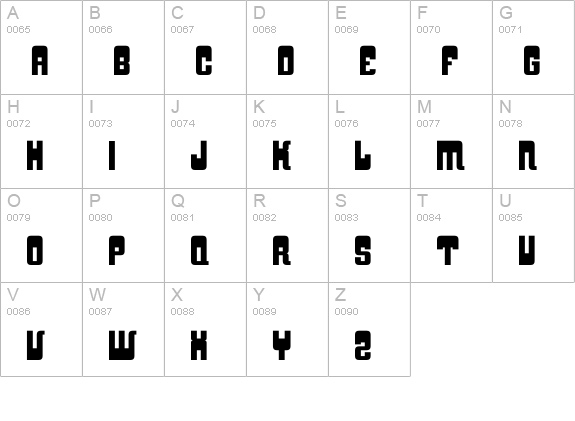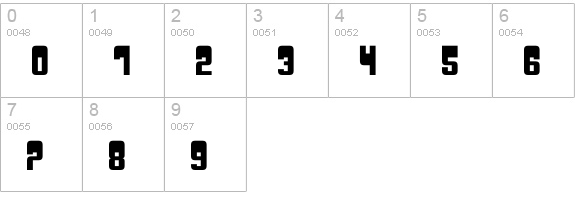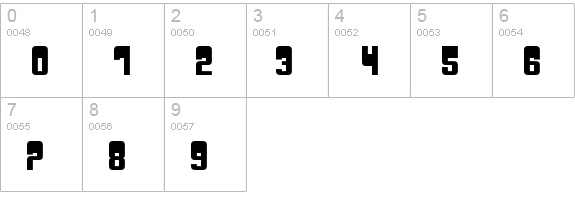
YnduFat font is a bold and striking typeface that commands attention with its unique design. Its thick, rounded letterforms exude a sense of strength and confidence, making it perfect for headlines, logos, and other display purposes. The smooth curves and generous spacing give YnduFat a modern and dynamic look that is sure to make your text pop. The best part? YnduFat font is completely free to download at FontsMarket.com! Whether you're a designer looking to add some flair to your projects or a business owner in need of a standout logo, YnduFat has got you covered. Don't miss out on the opportunity to enhance your designs with this eye-catching font - download YnduFat today and let your creativity shine!